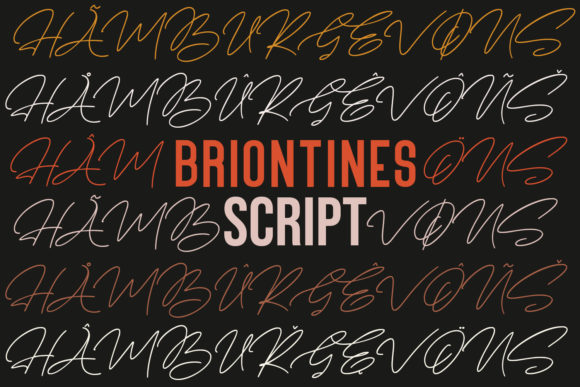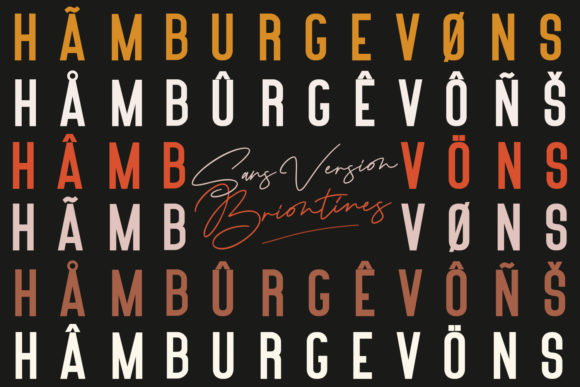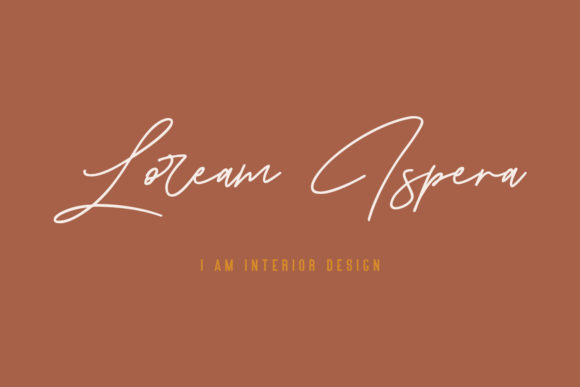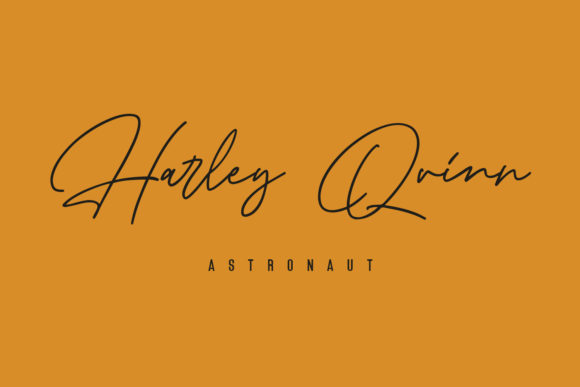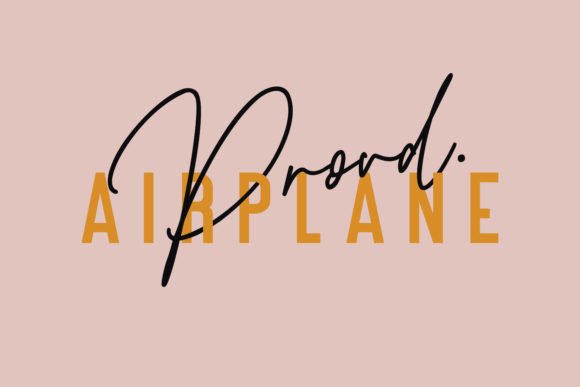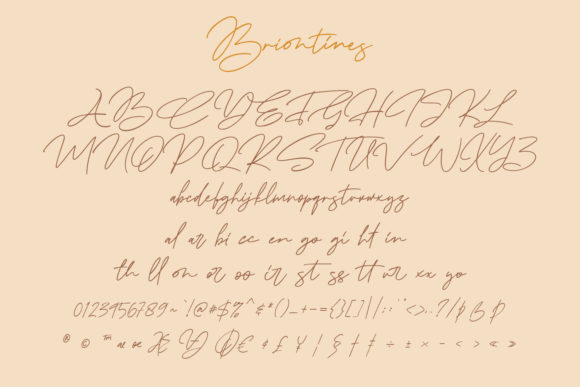
Discover the Perfect Match: Briontines Duo Font
Have you ever stared at a blank page, your mind racing with ideas, and a sense of creative frustration taking over? We’ve all been there – the blank slate staring back, daring us to bring our vision to life. But what if you had the perfect tool to unlock that creative potential? Meet the Briontines duo, a display font that’s about to become your go-to companion for design projects.
The Briontines Font is designed to elevate your designs to new heights. Whether you’re crafting a bold brand identity, creating a whimsical wedding invitation, or simply adding a touch of elegance to your signature, this font has got you covered. Its versatility, sophistication, and playfulness make it an invaluable asset for designers looking to take their work to the next level.
Briontines Font Key Features
- Font Family: Briontines Font is a unique, hand-drawn font with a mix of modern and vintage elements.
- Unique Characteristics: Features a distinctive, cursive-like script with subtle flair and elegance, making it perfect for invitations, wedding designs, and other special occasions.
Briontines Font Review
Overall, I was pretty excited to dive into the Briontines font and see what it had to offer. ✨ Here are some of the things that really stood out to me:
- Unique and playful feel: The Briontines font has a really distinct character that sets it apart from other fonts in its class.
- Highly customizable: I was impressed by the level of control offered by the font’s customizable features, which allow you to fine-tune everything from letter spacing to line height.
- Strong legibility: Despite its playful feel, the Briontines font remains highly legible, even at smaller font sizes.
That being said, there are a few areas where the Briontines font falls short:
- Limited language support: Unfortunately, the font only supports a limited number of languages, which may make it less useful for global projects.
- Not ideal for body text: While the Briontines font is great for headings and titles, it may not be the best choice for large blocks of body text, due to its relatively condensed width.
- Some character inconsistencies: I noticed a few instances where the font’s character design seemed inconsistent or awkward, which took away from its overall polish.
Overall, I think the Briontines font is a solid choice for projects where you want to add a touch of personality and whimsy. However, it may not be the best fit for every project, and you’ll need to carefully consider its limitations before making a decision.
Briontines Font is ideal for creative and artistic projects, such as graphic design, typography, and branding. It can also be used for headings and titles in documents and presentations. To get the most out of Briontines Font, experiment with different font sizes, colors, and styles to create unique and eye-catching designs.